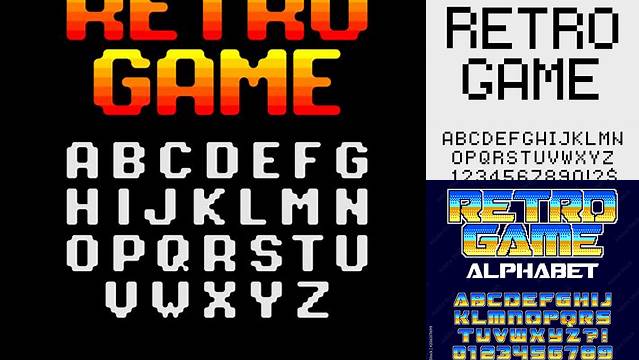
Free Retro Video Game Fonts: Level Up Your Design Game
Hey guys! Ever feel a rush of nostalgia when you see those iconic, blocky fonts from classic video games? Yeah, me too! They instantly transport us back to a simpler time of 8-bit adventures and epic quests. And guess what? You can totally bring that retro vibe to your own projects. In this article, we'll dive into the awesome world of free retro video game fonts. We'll explore what makes these fonts so special, where to find them, and how to use them to add that perfect pixelated touch to your designs. So, get ready to level up your typography game and unleash your inner gamer! Let's get started on our journey through the amazing world of free fonts.
Why Retro Video Game Fonts Rule
Okay, so why are retro video game fonts so darn cool? Well, it's more than just nostalgia, although that's a big part of it. These fonts have a unique aesthetic that's instantly recognizable and incredibly versatile. They capture the essence of classic games like Pac-Man, Super Mario Bros., and The Legend of Zelda, instantly evoking feelings of fun, excitement, and adventure. Think about it: those chunky, pixelated letters are like little digital building blocks, perfectly embodying the limitations and charm of early video game graphics. They're not just fonts; they're a visual language that speaks directly to our love of gaming.
Retro video game fonts have a distinctive charm. They are more than just a way of writing; they're a connection to memories of childhood spent in arcades or at home with consoles. This style is often associated with the 8-bit or 16-bit era and is a recognizable hallmark of that time. Because of this, the visual style is instantly recognizable and can be used for a wide array of design projects, including games, logos, websites, and even print materials.
These fonts are versatile and are useful in a variety of design projects. Because of their distinctive appearance, these fonts are not limited to the video game industry. They are often used to give a project a nostalgic or vintage appeal. They can be used in a wide range of projects, from creating unique logos and branding materials to designing user interfaces for websites and apps, because of their adaptability. This allows designers to tap into the power of nostalgia and capture the attention of audiences.
Furthermore, these fonts are easily accessible. Many fonts are free to download and use, which makes them an accessible resource for designers of all levels. This availability makes it easier for people to experiment with different styles and to find the perfect font for their design requirements. With a multitude of options, users can easily find the ideal font to capture the desired aesthetic.
Let's not forget the impact they have on design. They bring a sense of fun, playfulness, and creativity. They instantly grab attention and make your work stand out. They can also add a layer of personality and character, whether you're designing a poster, a website, or a social media graphic. This is the unique style that makes them a great choice for anything from personal projects to commercial ventures.
The Psychology of Pixelated Perfection
There's a subtle psychology at play here too. Retro fonts tap into our subconscious, reminding us of simpler times when games were all about gameplay, not fancy graphics. They trigger positive emotions associated with the past, and this can make your designs more engaging and memorable. It's a clever way to connect with your audience on an emotional level. They can also enhance user experience, giving a sense of familiarity and warmth, making them feel more at ease and comfortable. They can also generate curiosity, leading users to want to explore the content more. This adds an element of interactivity, encouraging users to interact with your content in a more profound way.
- Google Fonts: Google Fonts is an amazing resource, and you can find some awesome retro-inspired options there. Plus, it's all totally free and easy to use.
- Font Squirrel: Font Squirrel is another great source for free fonts, and they have a pretty good selection of retro fonts. They also have a tool to help you identify fonts, which is super handy.
- DaFont: DaFont is a massive collection of fonts, including a large selection of retro and pixel fonts. You can find some real gems here, but be sure to check the license before you use them. I like the retro-style fonts because you can customize them to your taste.
- Behance/Dribbble: These platforms are full of talented designers who often share freebies, including fonts. Keep an eye out for free font packs and design resources.
- Individual Designer Websites: Many font designers have their own websites where they offer free fonts. A quick search for "free retro font" can lead you to some hidden treasures.
Licensing and Usage: A Quick Heads-Up
Before you start using any font, it's super important to check the license. Most free fonts are free for personal use, but you might need a commercial license if you're using them for business purposes. Always read the fine print to make sure you're in the clear. This will make it easier to prevent any legal issues. It's always a good idea to familiarize yourself with each font's specific licensing agreements before use. This is an important step in adhering to legal standards when using these fonts in various projects. This process helps ensure compliance and protects your rights. If you're unsure, contact the designer or the font website for clarification.
Level Up Your Designs: Go Forth and Pixelate!
And there you have it, guys! You now have the knowledge and resources to add some seriously cool retro vibes to your designs. So go forth, download those free fonts, and let your creativity run wild. Whether you're a game developer, a web designer, or just a design enthusiast, retro video game fonts are a fun and effective way to make your work stand out. Embrace the nostalgia, celebrate the pixels, and have fun creating something amazing! I hope this guide has been helpful, and I wish you the best of luck on your design journey. Now go out there and start creating some awesome stuff!